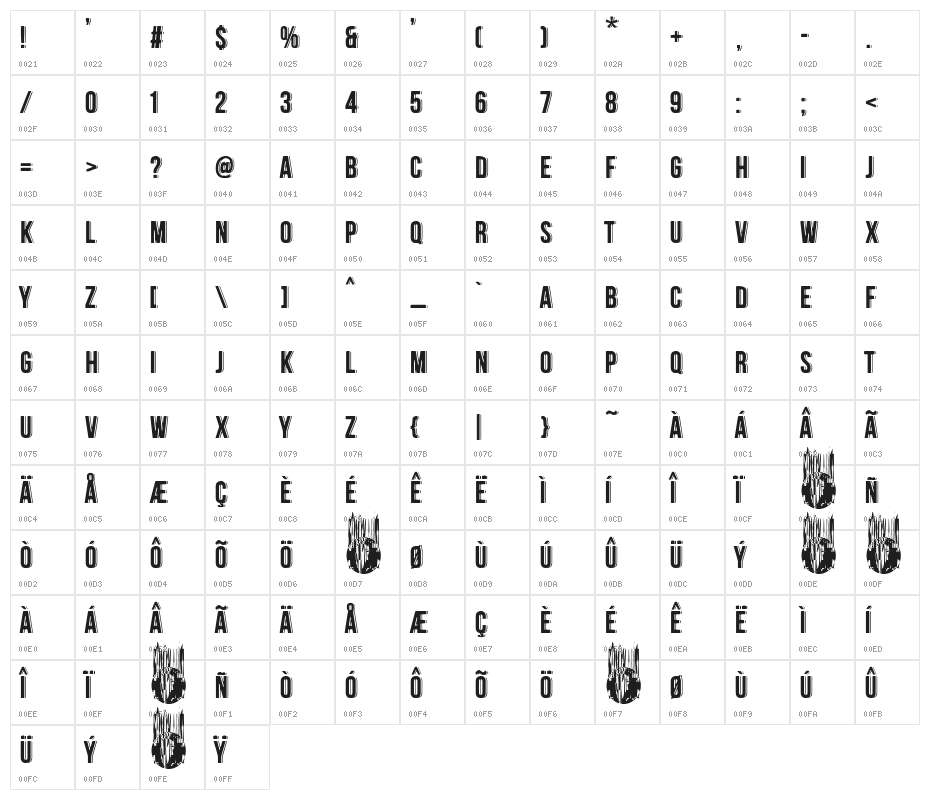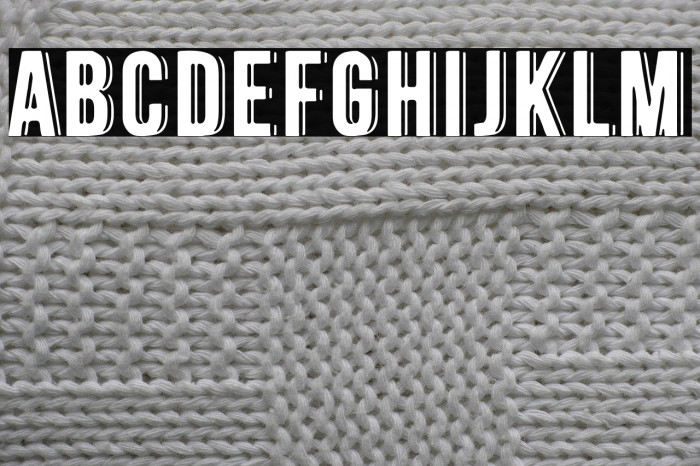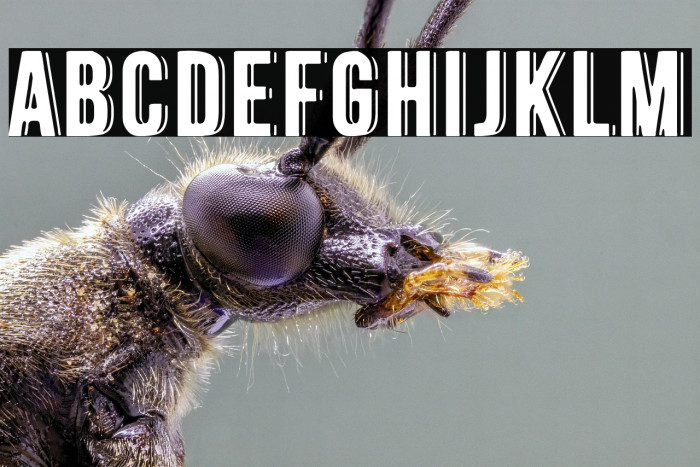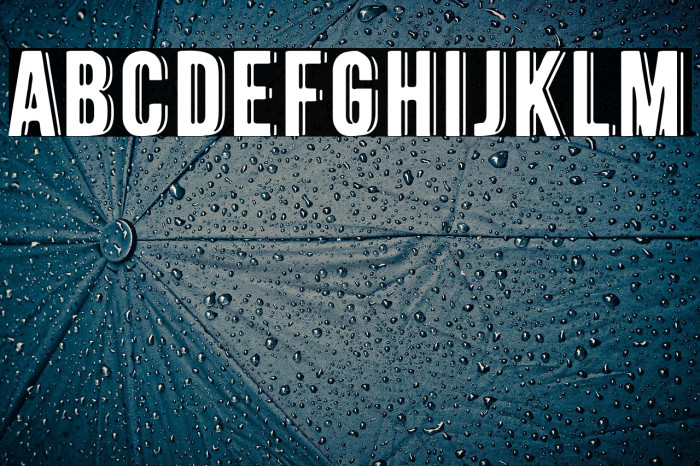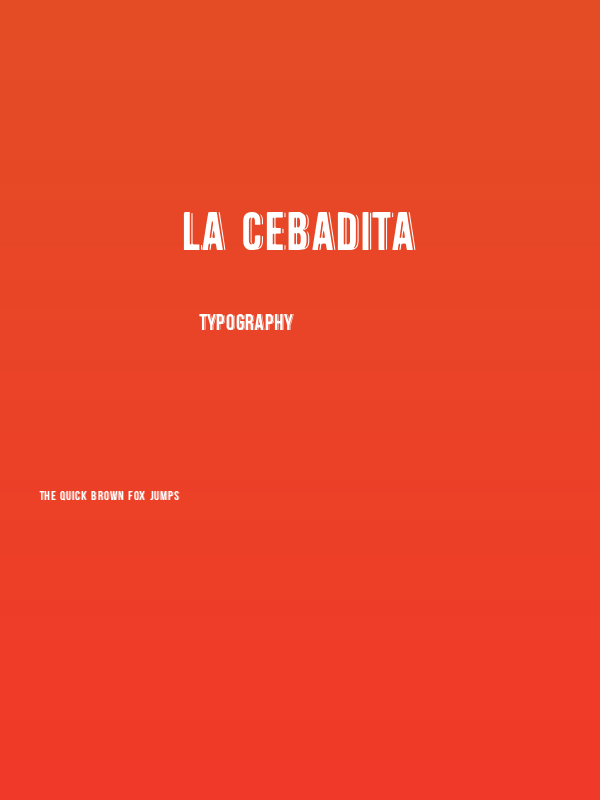
La Cebadita Font
La Cebadita Description
This font features a bold and impactful design with a distinct shadow effect, giving it a three-dimensional appearance. The uppercase letters are strong and commanding, while the numbers and special characters maintain the same bold style. The font's unique shadowing adds depth and interest, making it stand out in any design. The characters are evenly spaced, ensuring readability despite the boldness. This style is reminiscent of vintage poster fonts, yet it carries a modern twist with its clean lines and structured form.
| Overall Style | Vintage, Modern |
| Proposed Projects | Ideal for posters, headlines, branding, and any design requiring a strong visual impact. |